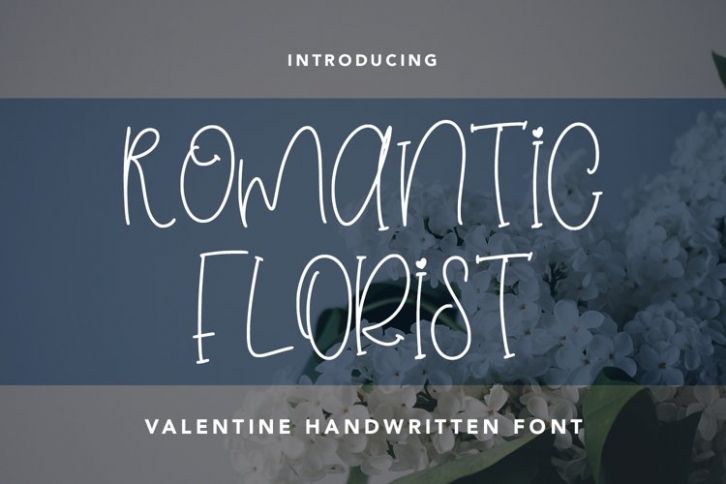
Romantic Florist is a beautiful font that was designed by plusstore. It's a great choice for designers and creatives who need such a font. It was released on December 9, 2021 and the file size is 9.66 MB. Romantic Florist may give a more youthful, expressive and casual look to your project. It is a very beautiful, refined, elegant, and high-quality font.